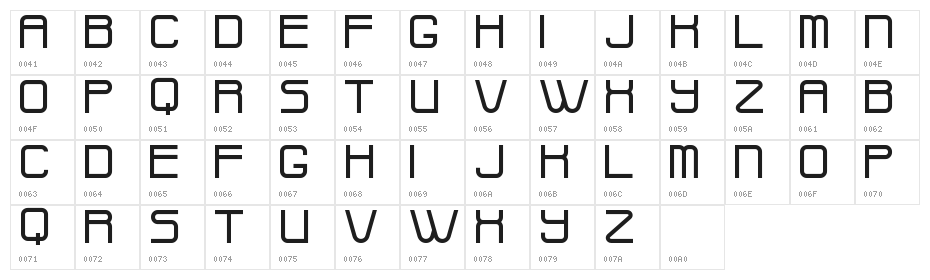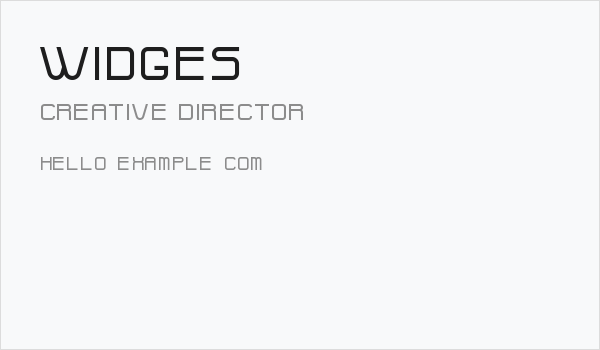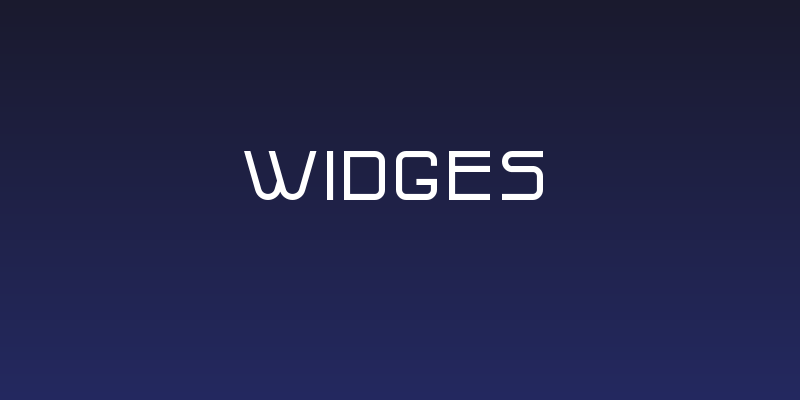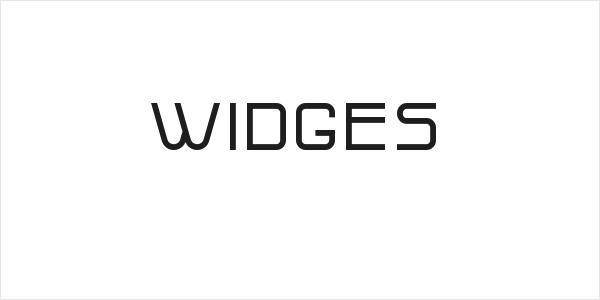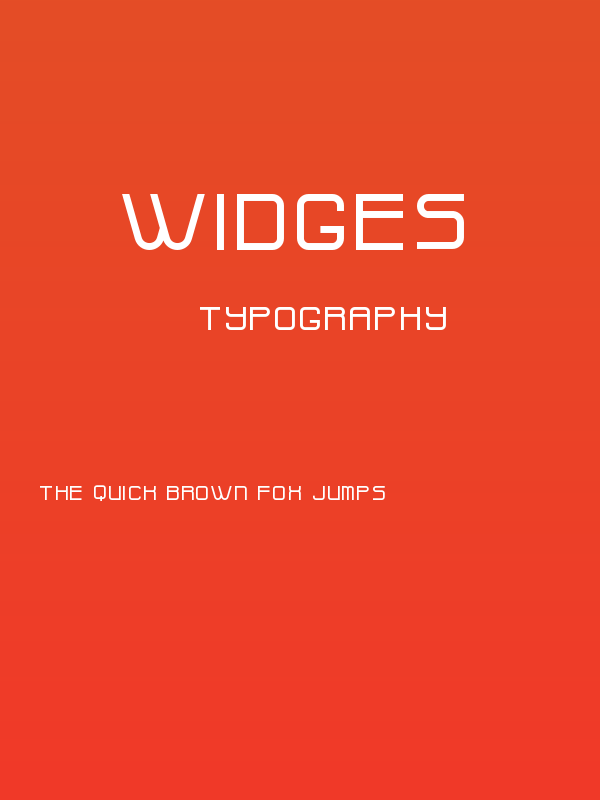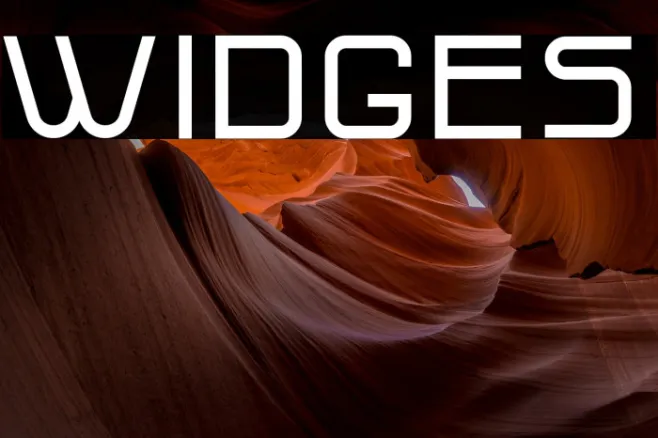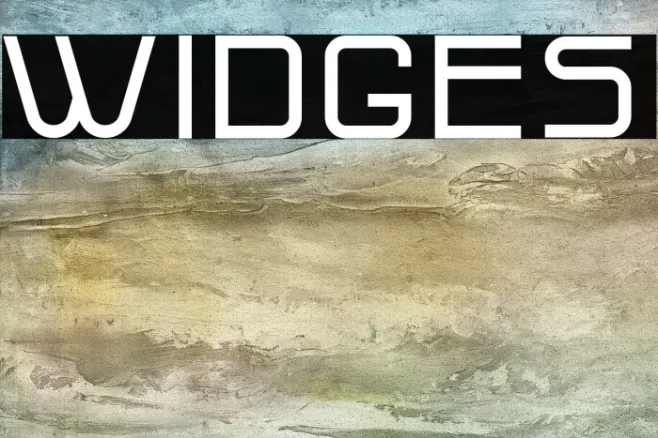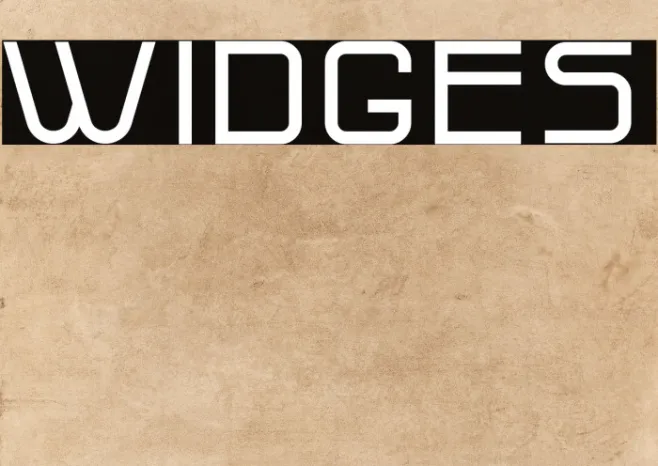
Widges Font
Widges Description
This font features a modern, geometric design with clean lines and a structured appearance. The characters are uniform in height and width, creating a balanced and cohesive look. The font's style is minimalistic, with a focus on readability and simplicity. The rounded edges of the letters add a touch of softness to the otherwise angular design, making it versatile for various applications. The consistent stroke width throughout the characters ensures a harmonious visual flow, while the open counters enhance legibility. This font is suitable for both digital and print media, offering a contemporary aesthetic that can be adapted to a wide range of design projects.
| Proposed Projects | Ideal for branding, web design, advertising, and editorial layouts. |